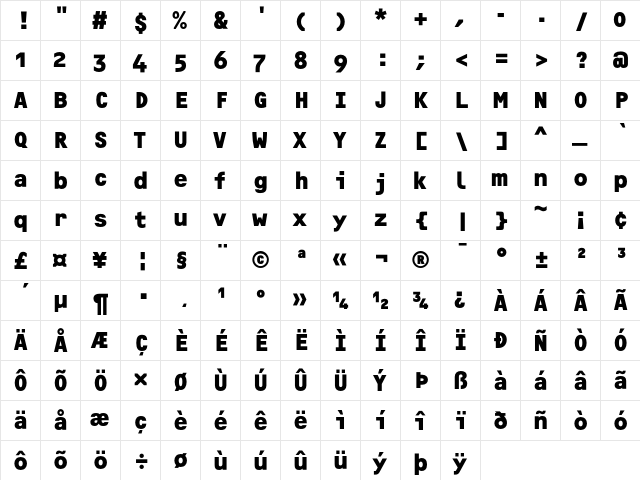
OCRF BoldOSF
Design Context for OCRF Typeface
OCRF is a composed and adaptable typeface that performs quietly and consistently across a wide range of design contexts. The heavy weight commands attention and anchors typographic hierarchies.